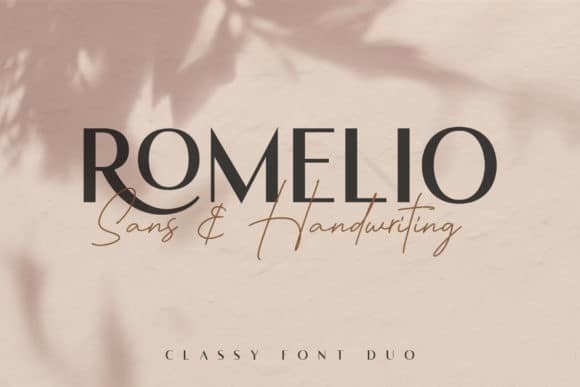
Romelio Sans Serif Font
Romelio Sans Serif Font is a modulated display sans font family. It enriched by letterforms that shown a simple, classic and elegant impression. It’s designed and shared by Arterfak . Incredibly versatile, this font fits a wide pool of designs, elevating them to the highest levels. Add this font to your favorite creative ideas and notice how it makes them come alive!